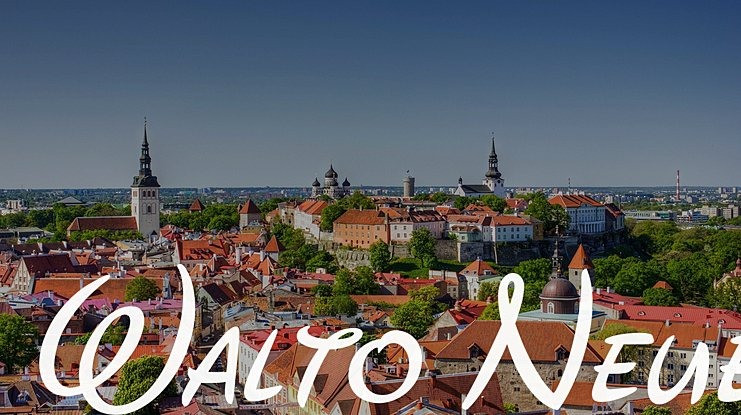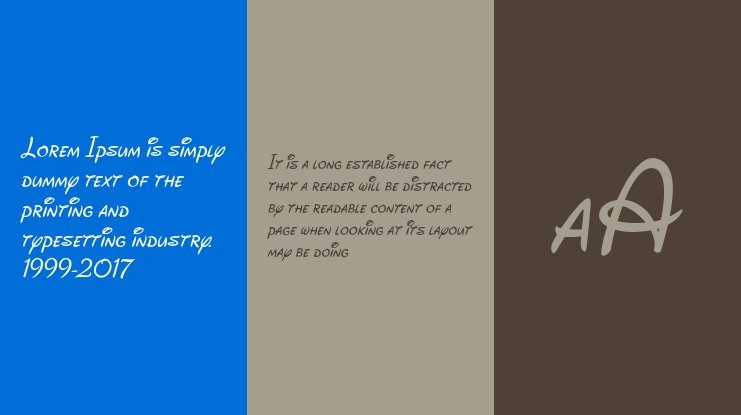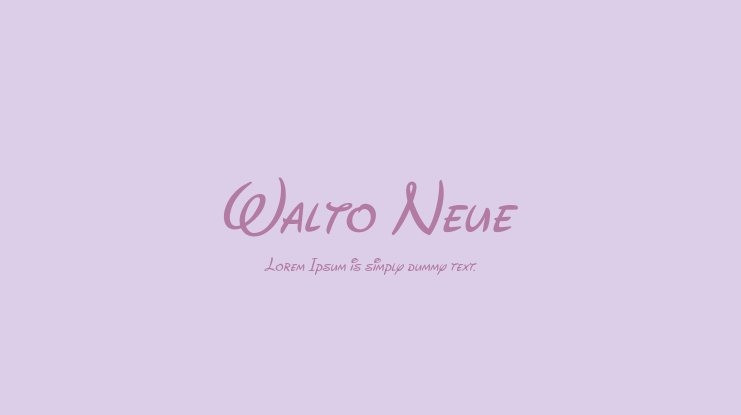
Walto Neue Font
Walto Neue, a more so redesigned version of the Waltograph font. Not only that, but a font based on the Walt Disney Pictures logo from 2006.
The highlights of Walto Neue consist of international language support, including Cyrillic.